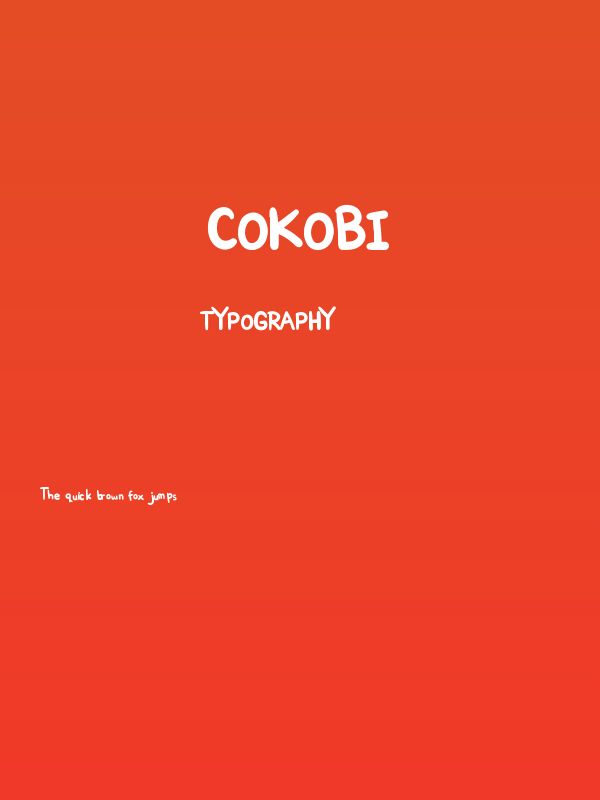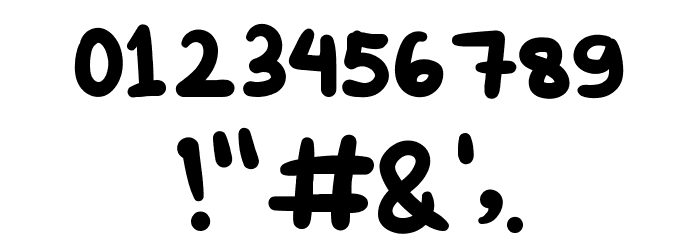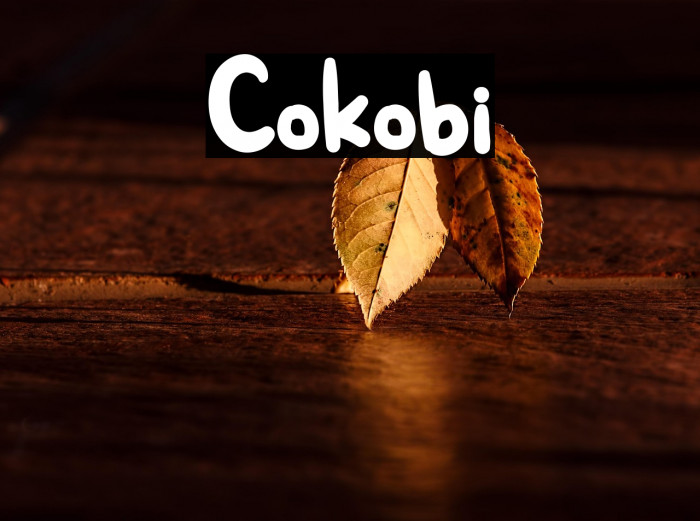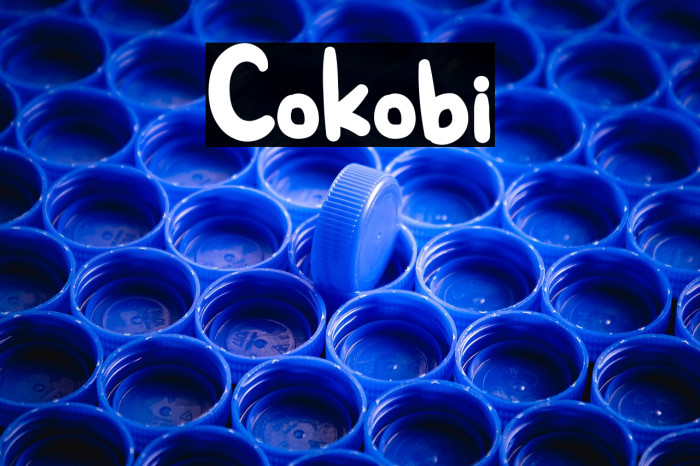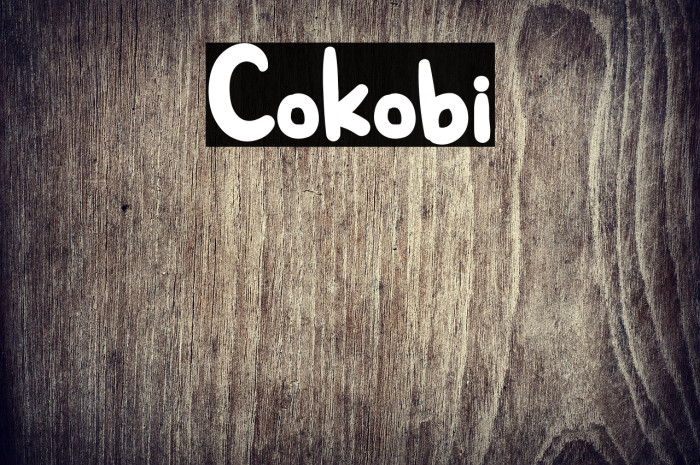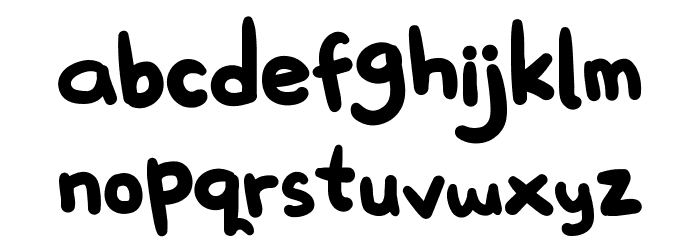
Cokobi Font
Cokobi Description
This playful and bold font features rounded, thick strokes that give it a friendly and approachable appearance. The characters are slightly irregular, adding a whimsical touch that makes it stand out. The uppercase and lowercase letters are well-balanced, with a consistent stroke width that maintains readability. The numbers and special characters follow the same design principles, ensuring uniformity across all glyphs. This font's casual style makes it ideal for projects that require a fun and informal vibe.